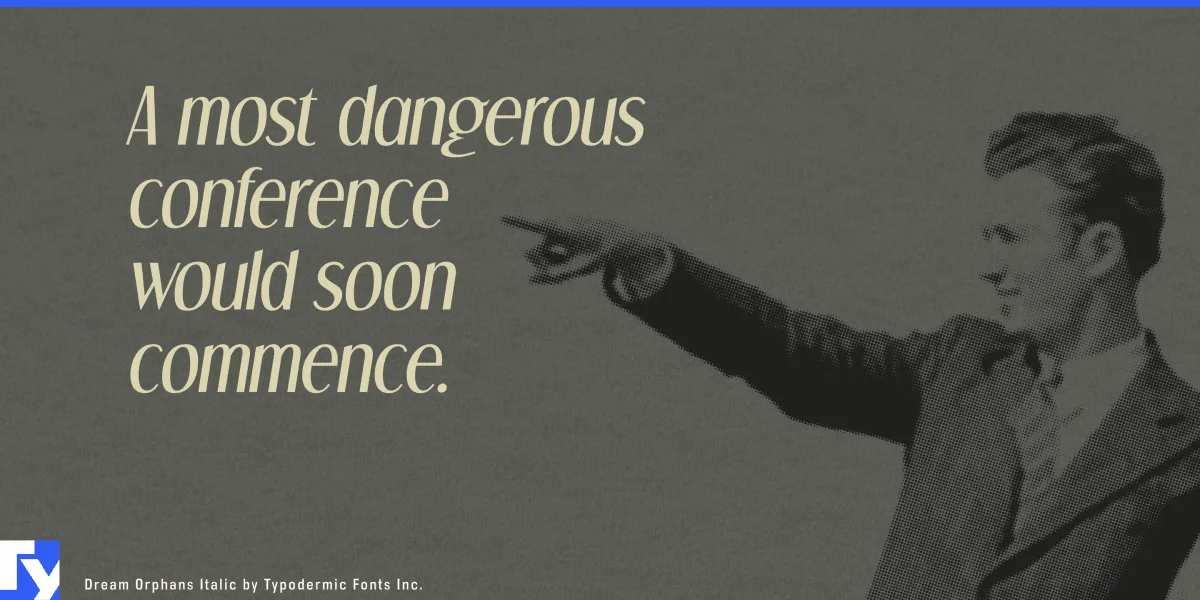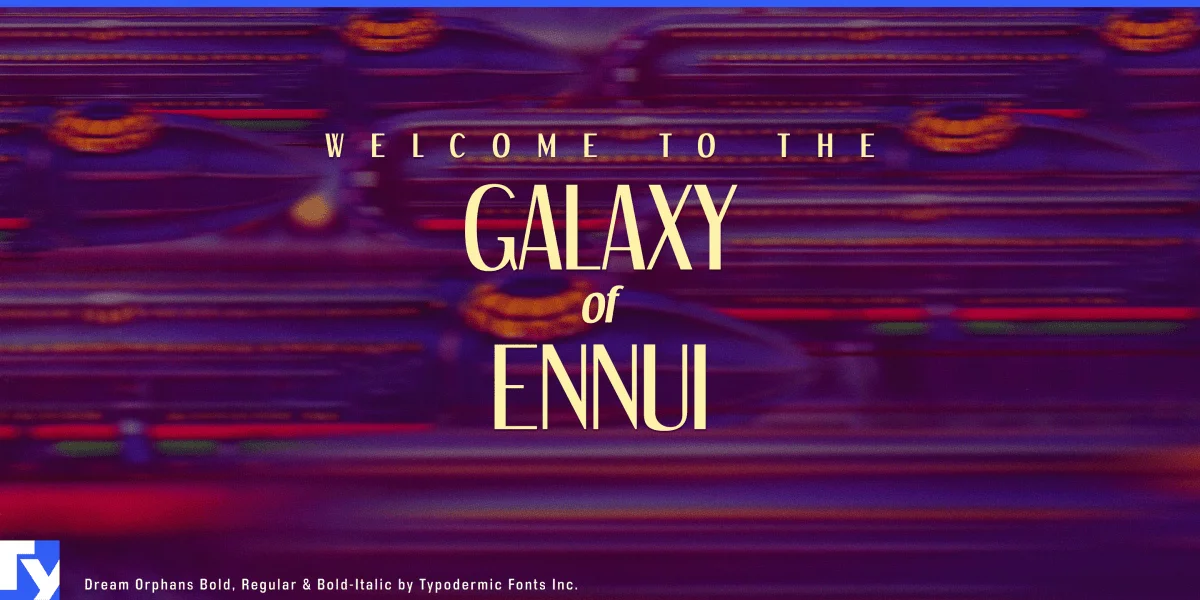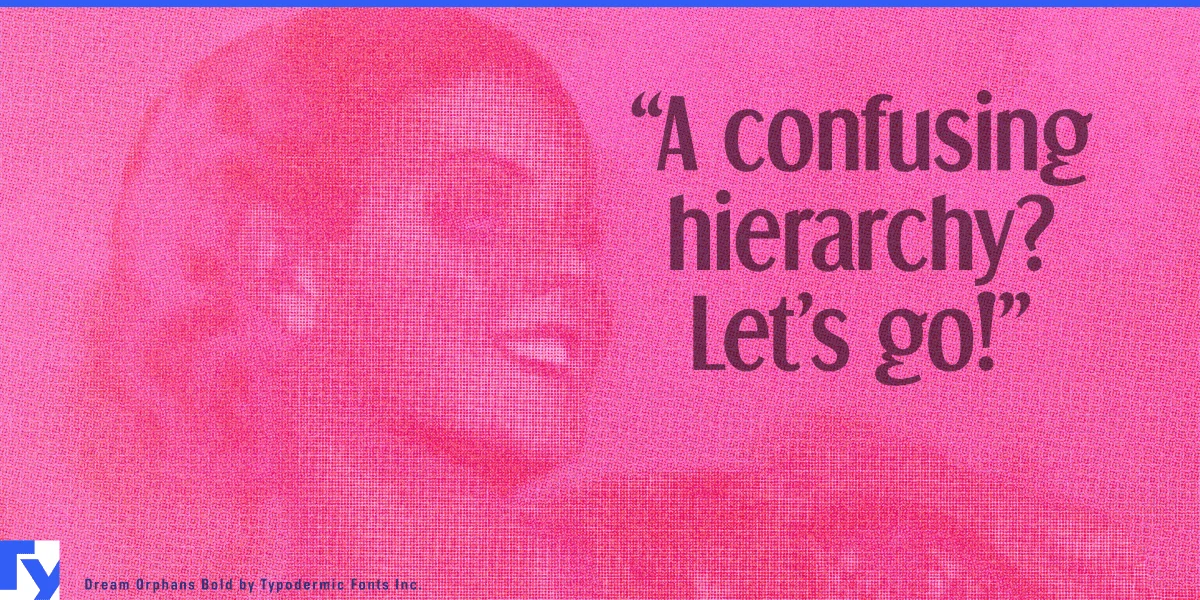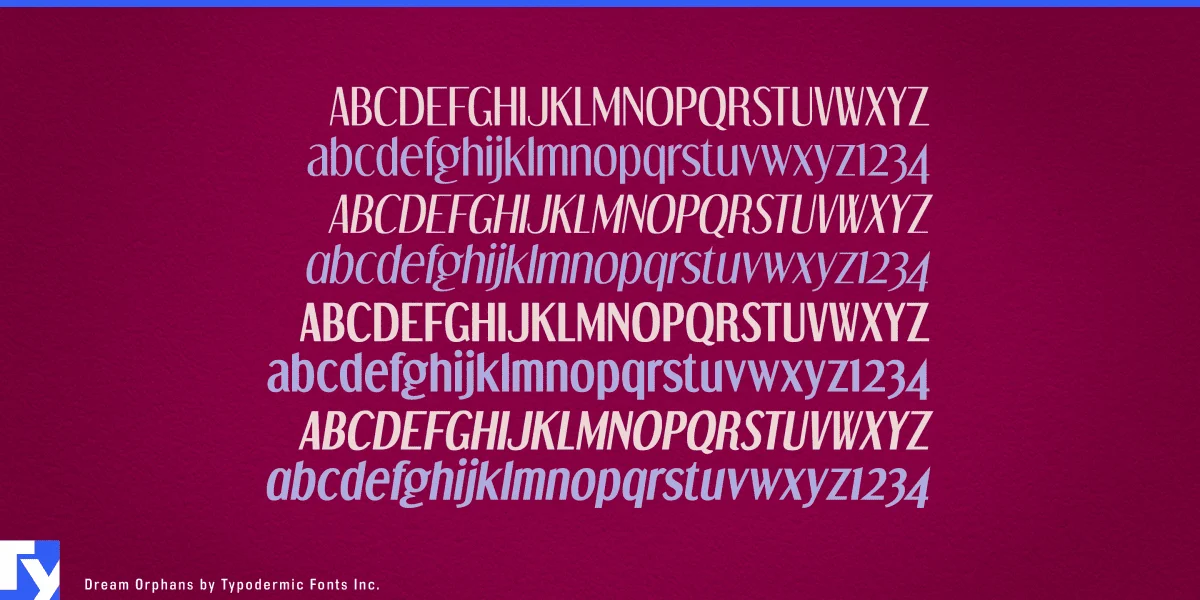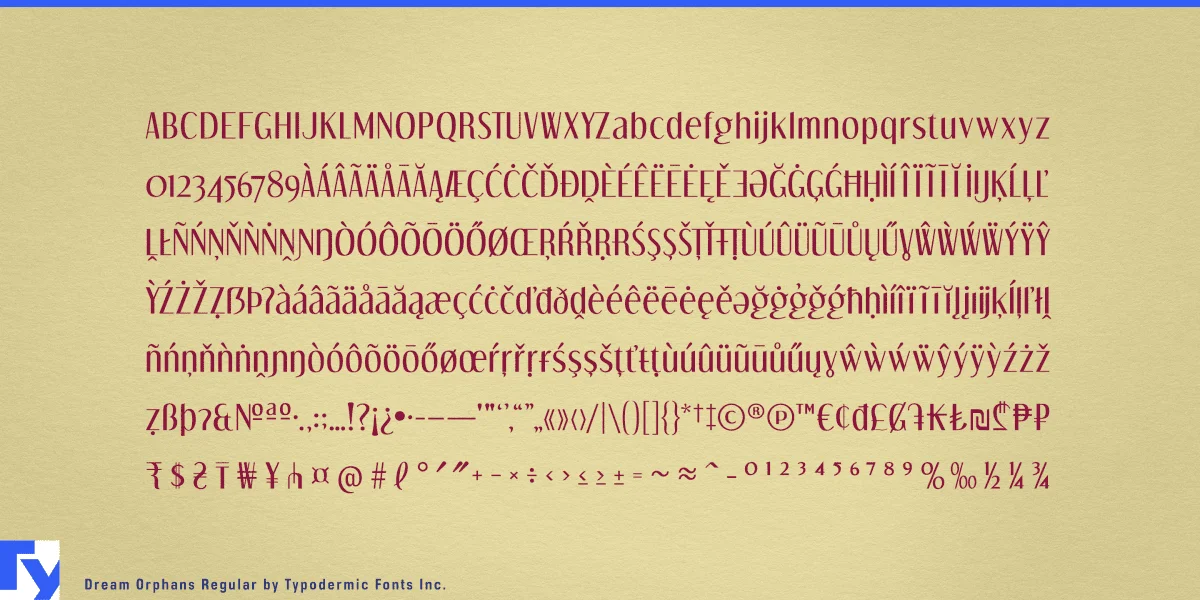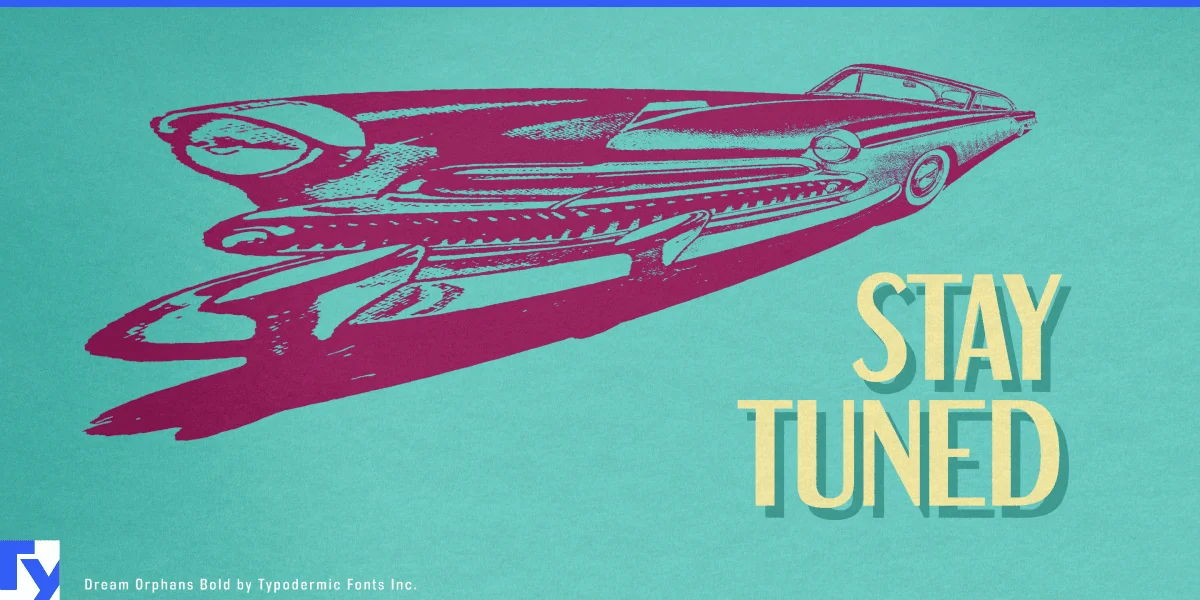
Dream Orphans is a headline typeface with a simple, homey feel. Its tiny cachet and close-fitting spacing make it perfect for titling circumstances where room is limited. OpenType fractions and numeric ordinals, as well as primes and a liter sign, are included in Dream Orphans. If you want to see the same typeface in a more sophisticated form, check out Dream Orphanage, Dream Orphans’ sister typeface. Most Latin-based European writing systems are supported, including the following languages. Afaan Oromo, Afar, Afrikaans, Albanian, Alsatian, Aromanian, Aymara, Bashkir (Latin), Basque, Belarusian (Latin), Bemba, Bikol, Bosnian, Breton, Cape Verdean, Creole, Catalan, Cebuano, Chamorro, Chavacano, Chichewa, Crimean Tatar (Latin), Croatian, Czech, Danish, Dawan, Dholuo, Dutch, English, Estonian, Faroese, Fijian, Filipino, Finnish, French, Frisian, Friulian, Gagauz (Latin), Galician, Ganda, Genoese, German, Greenlandic, Guadeloupean Creole, Haitian Creole, Hawaiian, Hiligaynon, Hungarian, Icelandic, Ilocano, Indonesian, Irish, Italian, Jamaican, Kaqchikel, Karakalpak (Latin), Kashubian, Kikongo, Kinyarwanda, Kirundi, Kurdish (Latin), Latvian, Lithuanian, Lombard, Low Saxon, Luxembourgish, Maasai, Makhuwa, Malay, Maltese, Māori, Moldovan, Montenegrin, Ndebele, Neapolitan, Norwegian, Novial, Occitan, Ossetian (Latin), Papiamento, Piedmontese, Polish, Portuguese, Quechua, Rarotongan, Romanian, Romansh, Sami, Sango, Saramaccan, Sardinian, Scottish Gaelic, Serbian (Latin), Shona, Sicilian, Silesian, Slovak, Slovenian, Somali, Sorbian, Sotho, Spanish, Swahili, Swazi, Swedish, Tagalog, Tahitian, Tetum, Tongan, Tshiluba, Tsonga, Tswana, Tumbuka, Turkish, Turkmen (Latin), Tuvaluan, Uzbek (Latin), Venetian, Vepsian, Võro, Walloon, Waray-Waray, Wayuu, Welsh, Wolof, Xhosa, Yapese, Zapotec Zulu and Zuni.